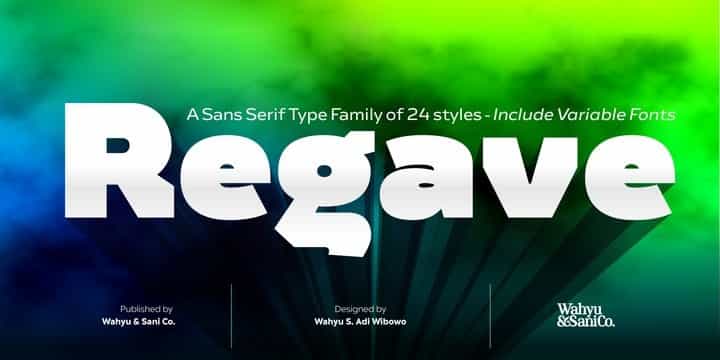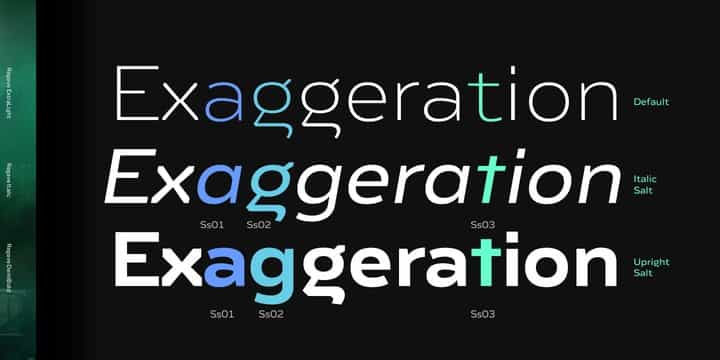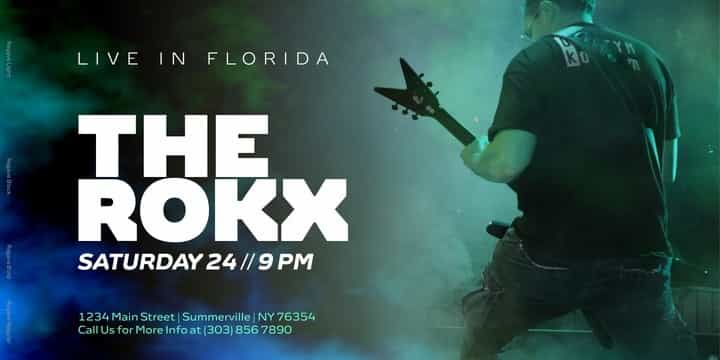
Regave is an innovative, modern sans-serif style of typeface. It’s sharp, clear and boasts bold, energetic letter forms, yet with a solid backbone. A typeface influenced by Danish style lettering, derived from designs by Knud Van Engelhardt (1882-1931) who created the street signs used in Gentofte, a Copenhagen area of Gentofte.